Type is one of the most expressive element in designers work, we use fonts every day, we search, we test and search again till we find the best fit for a project, and sometimes You just can’t find the right font! So once we tried to make our own font, and we made – Thin Line Font – and two weeks after publishing it got downloaded 20 000 times.
After their excellent reviews RIT Creative decided to make and publish few more fonts and by now they have seven (7) fonts! with the most famous one, SUNN to have been downloaded more than 200 000 times! Inspired by these numbers and many requests RIT Creative made an extended version of SUNN font, the SUMMER font, which isn’t free but it has a really low and symbolic price of 4.95$ and You get 6 styles (bold / regular / light & Italic) + latin extended + cyrillic.
Here are five (5) of the fonts RIT Creative designed.
SUMMER FONT:
SUMMER is great and playful font it looks very well in headings, logos and short descriptions. The main idea was to create a font thats playful and has a strong construction underneath, so it would look great everywhere!
SUMMER font has a free version as well – SUNN free font.
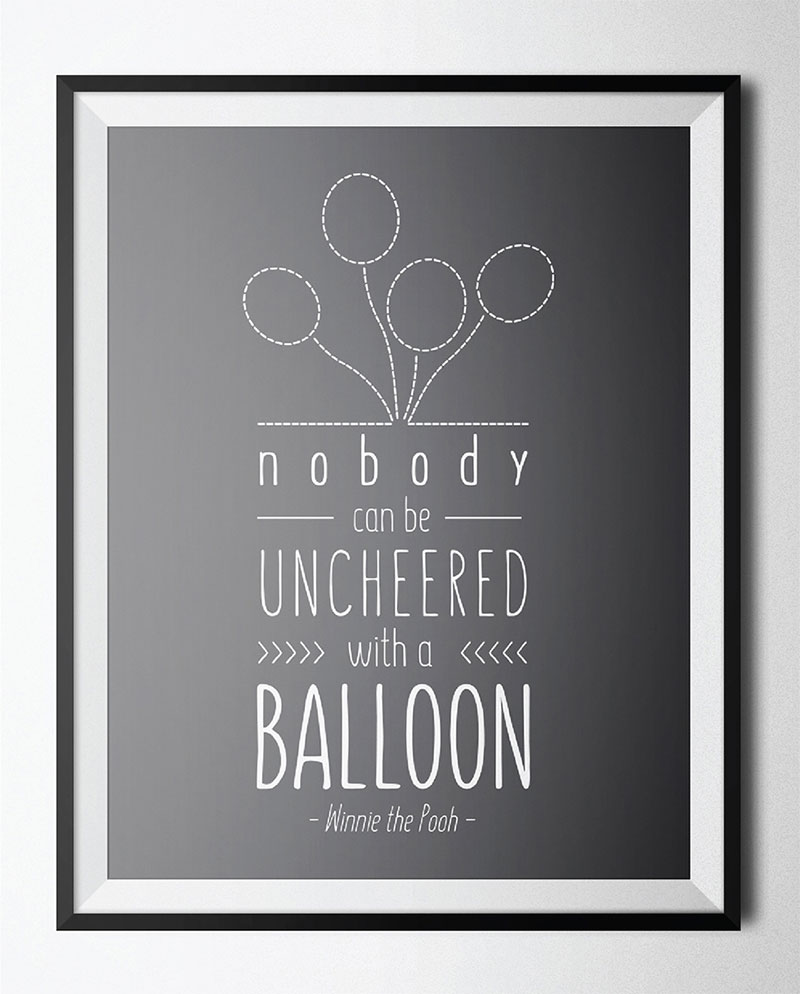
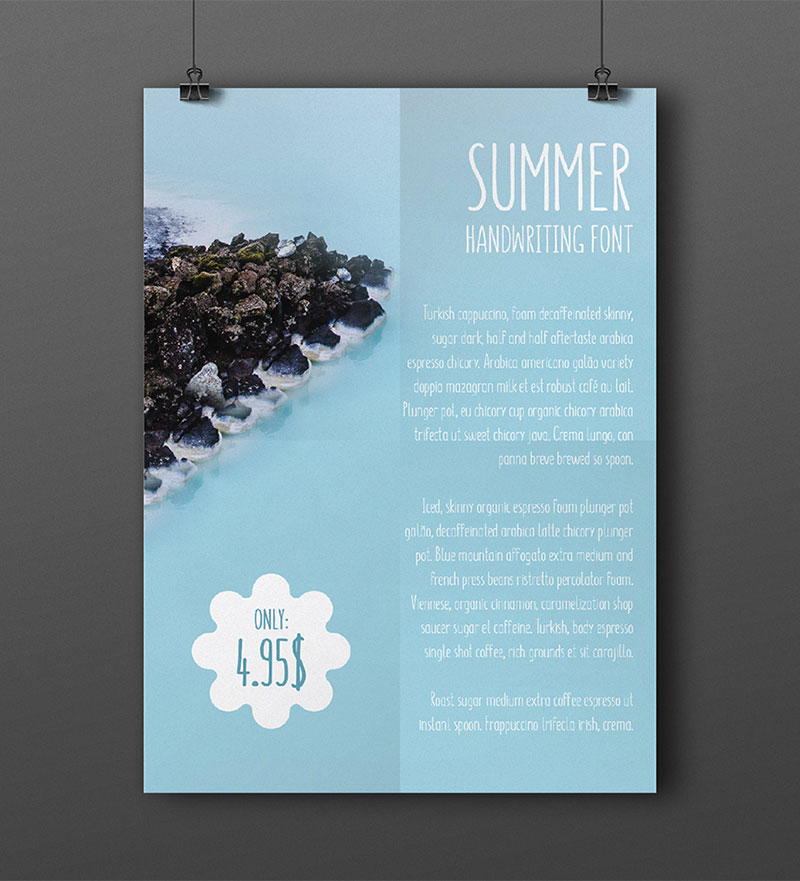
REEF
REEF is our newest font, it’s a rounded font, it has no sharp edges, it look great in headings and logos!
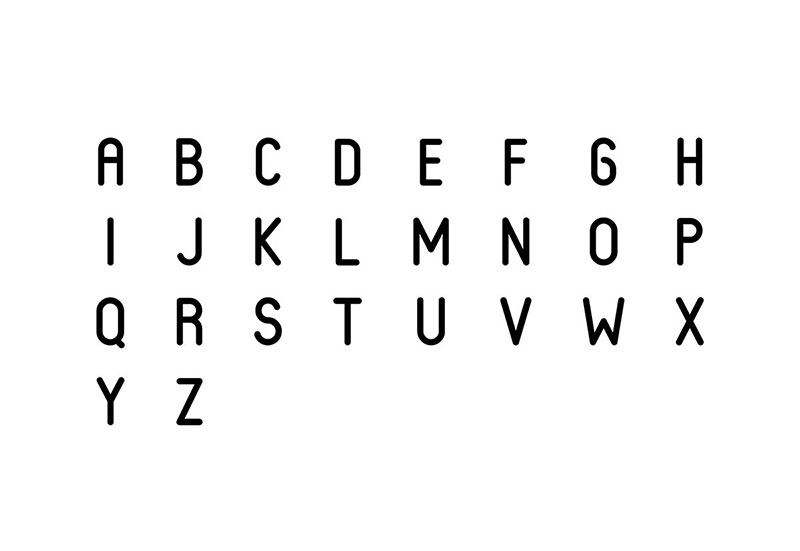
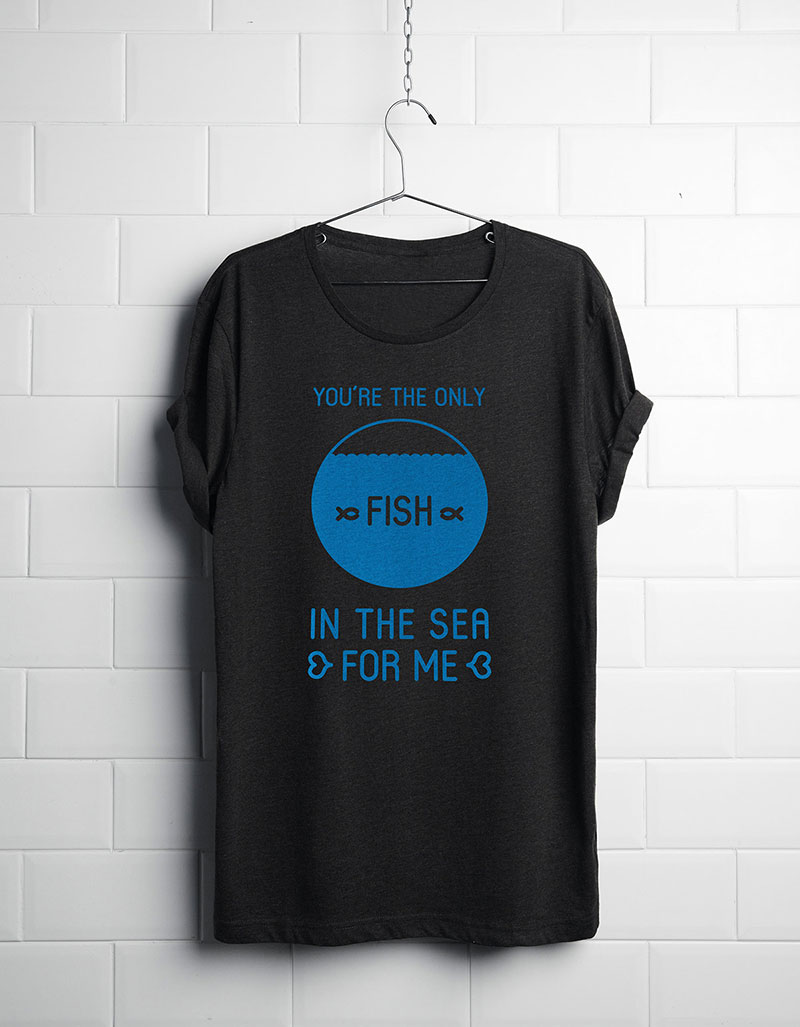
MODEKA
Modeka is our second made font. The main idea was to combine corners with round details, and we got an elegant and simple letterforms which works well for headings and logos. It comes in lowercase and uppercase.
BESOM
BESOM is our second most downloaded font. It has only BIG letters for strong and convincing heading and logos. Written with a thick brush that resembles a raw besom, that’s also from where the name rose.
Besom has an extended version as well. (BESOM Extended)
THIN LINE FONT
Thin Line Font is our first font ever made, the main idea was to make letters out of a thin line so that the lines intertwine.